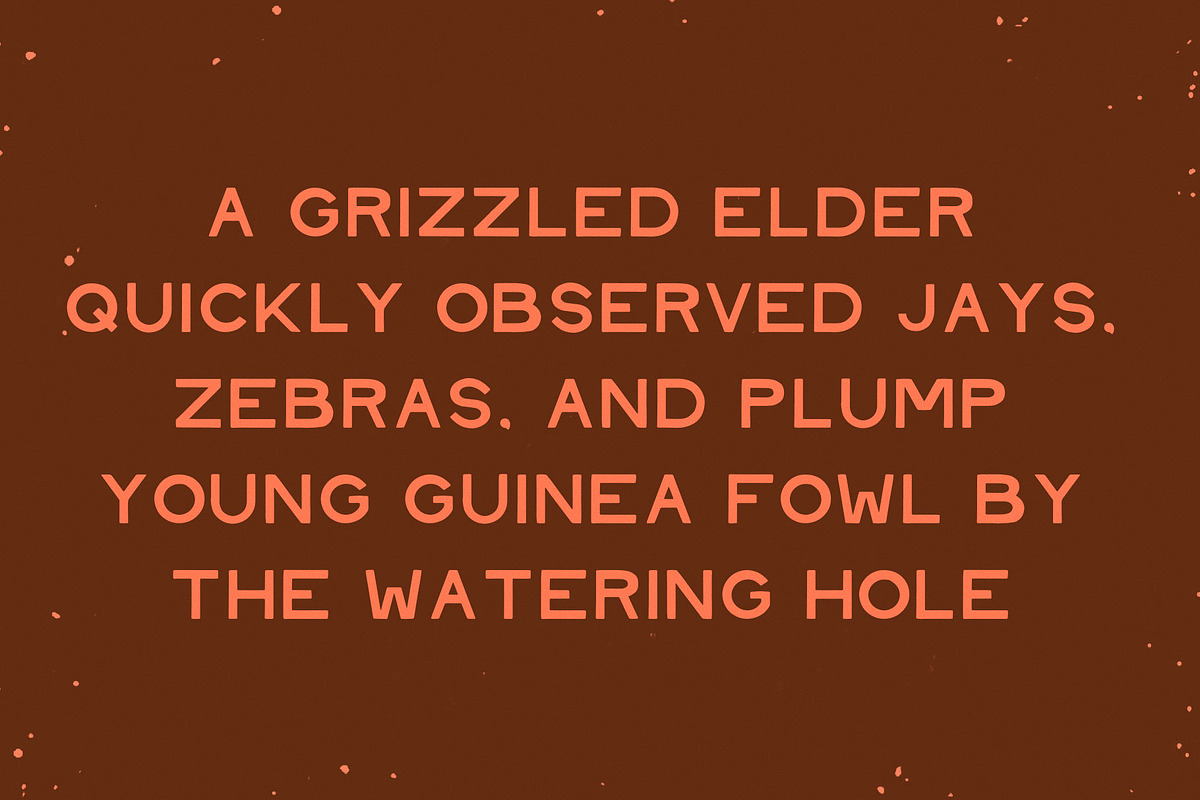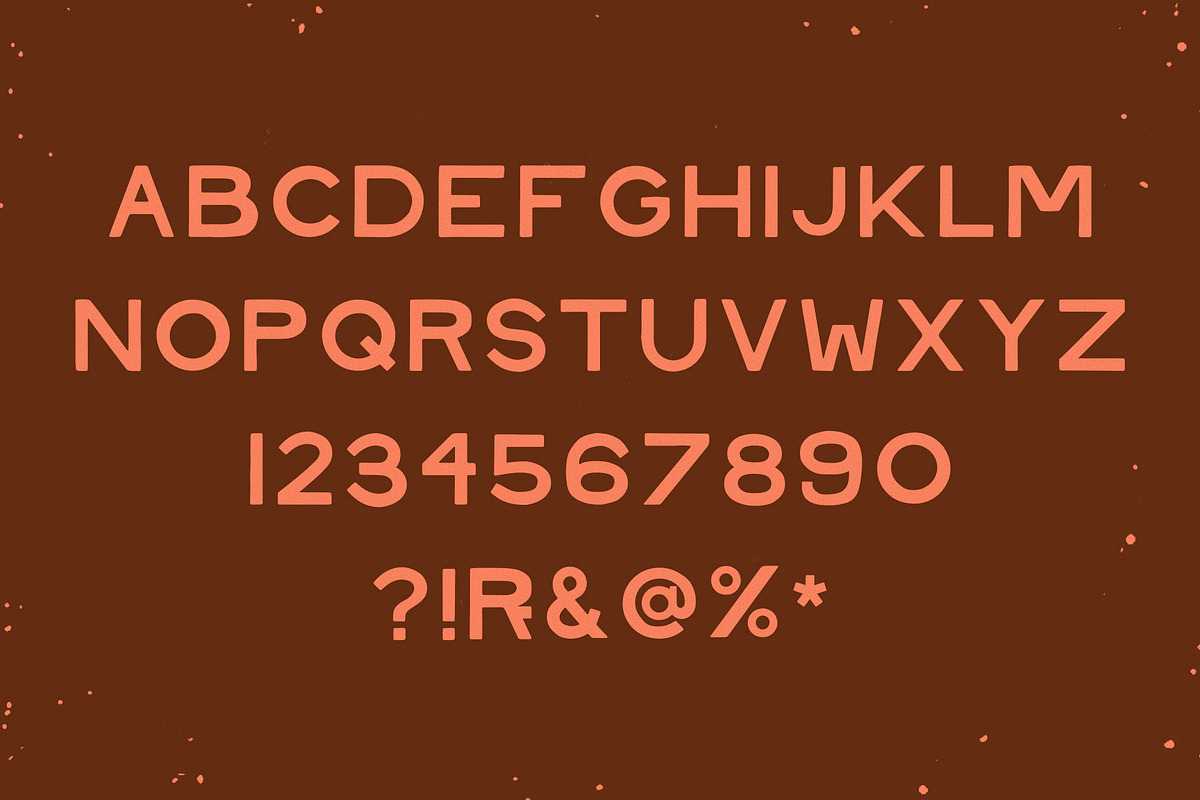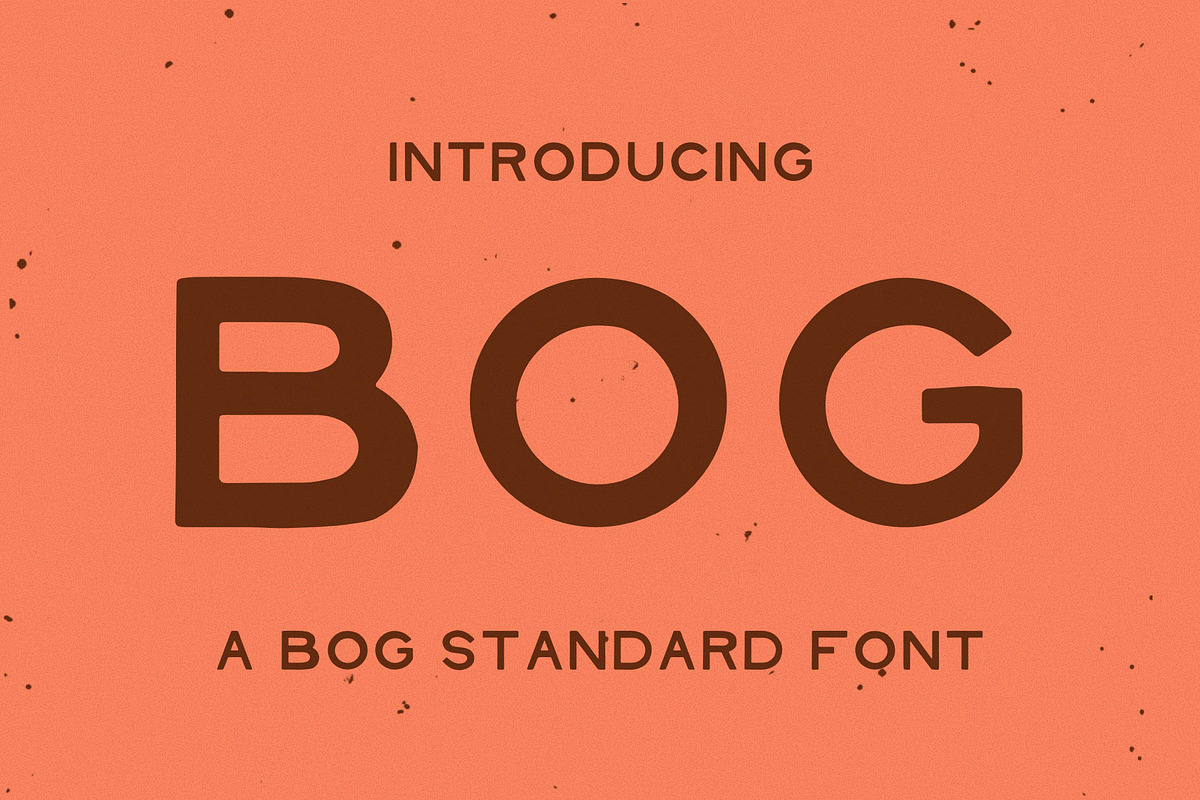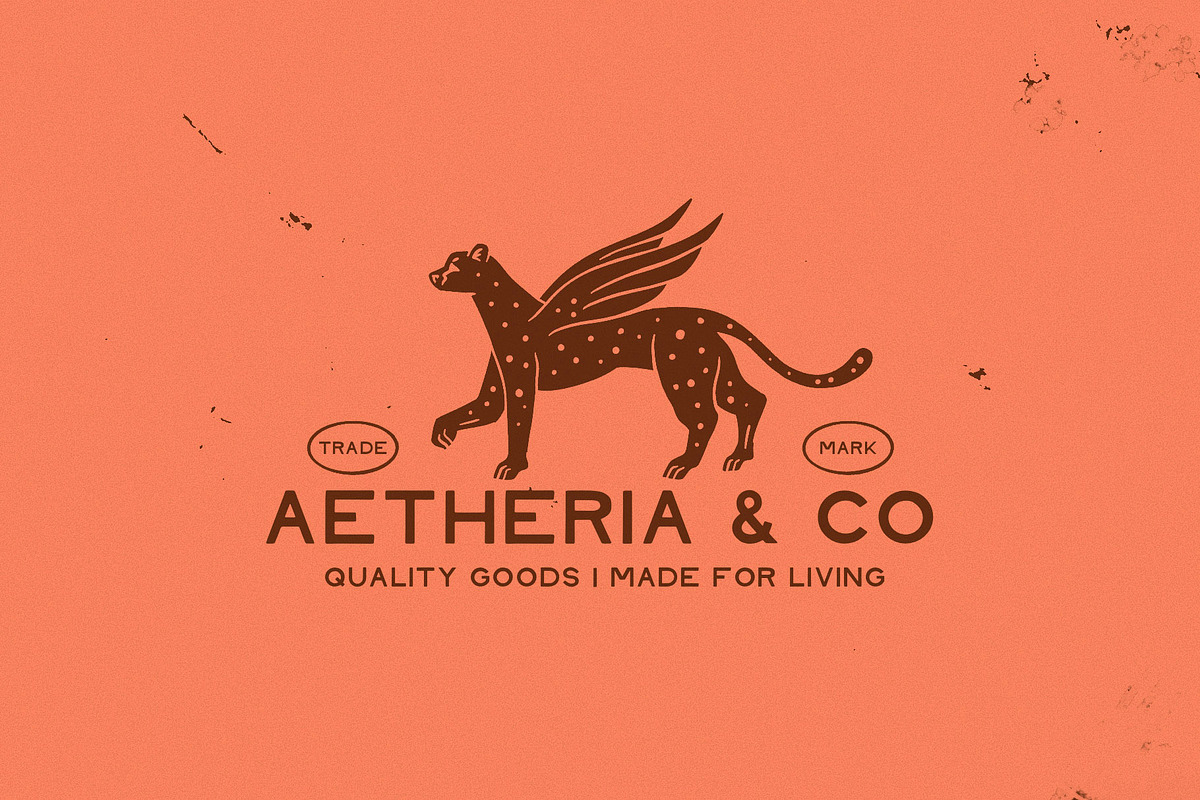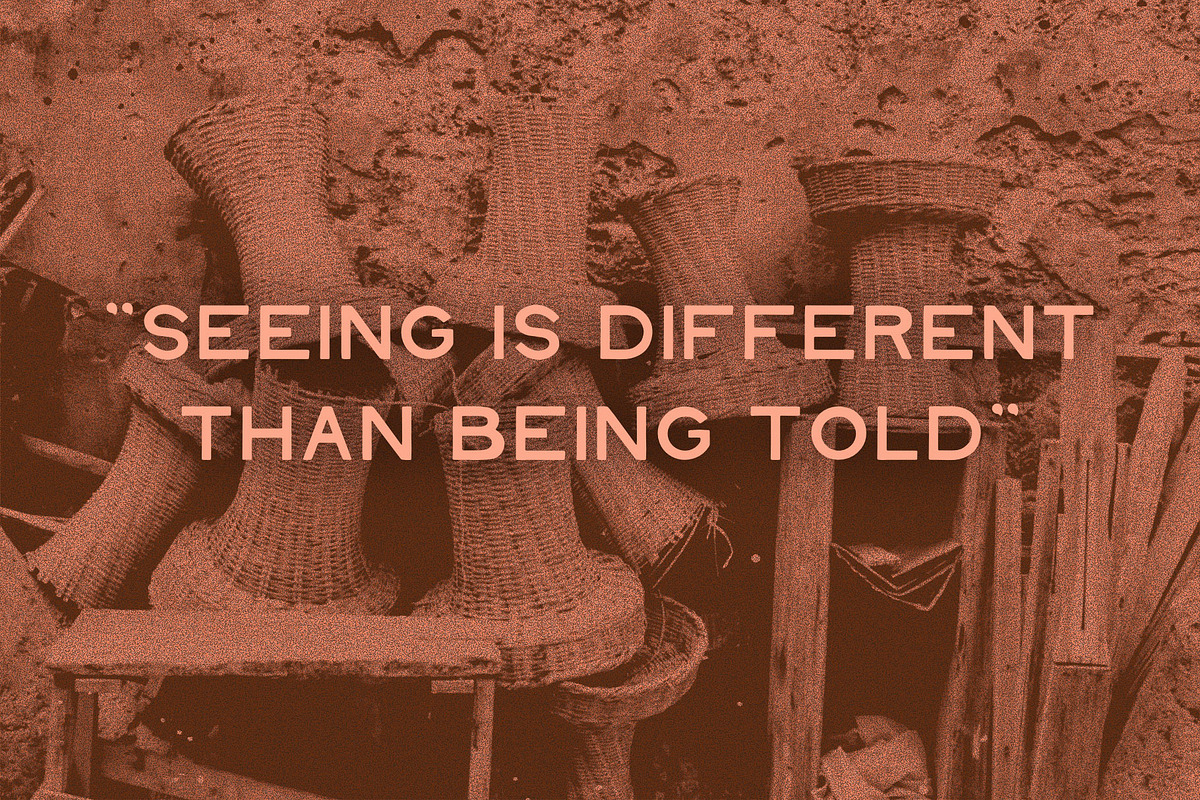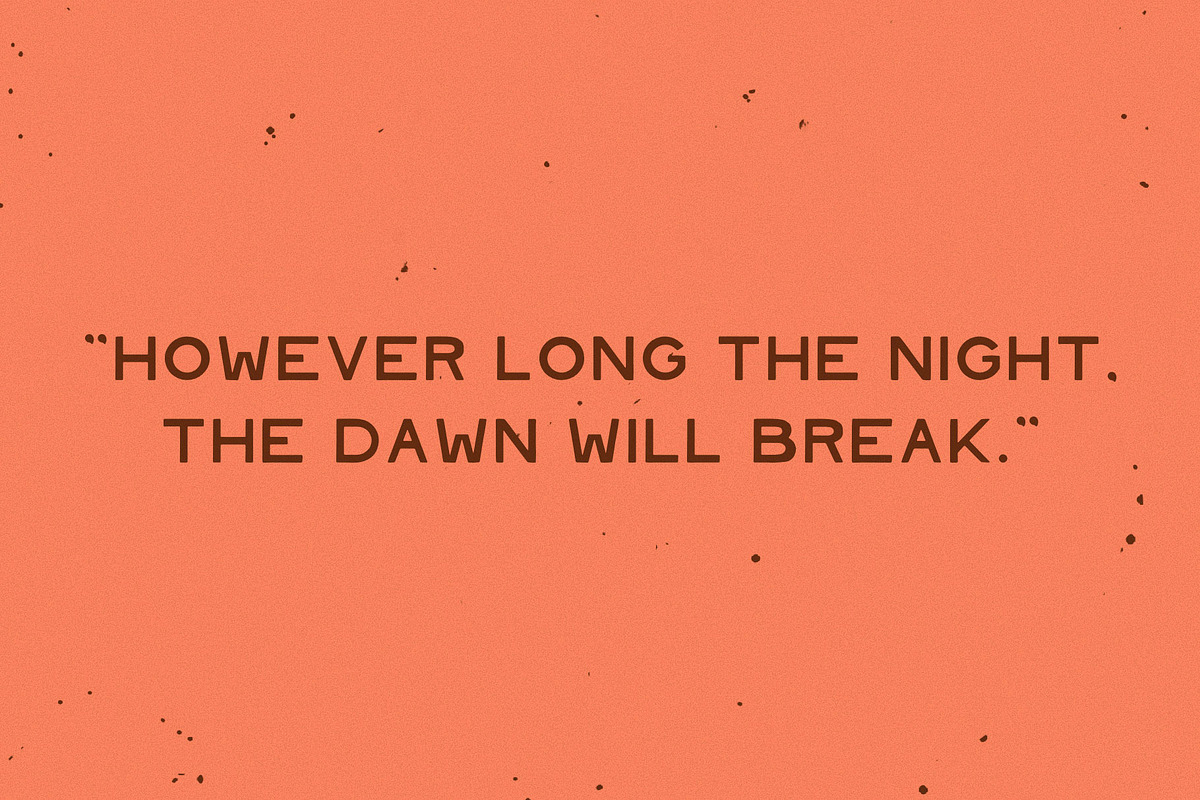
Bog | A Bold Hand Made Font
Introducing Bog: A bog-standard sans serif font, and that's precisely the point. Inspired by the kind of basic, handmade lettering you might have seen way back when, Bog is refreshingly simple.
Don't expect any frills – just a solid, unpretentious typeface ready to tackle your design needs with down-to-earth charm. Use Bog when you want a font that's honest, straightforward, and maybe just a little bit… well, bog standard.